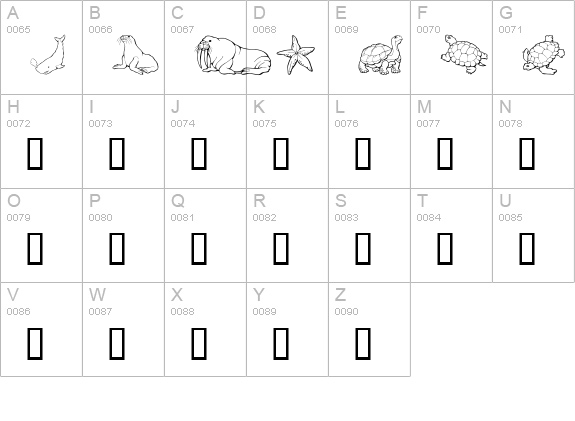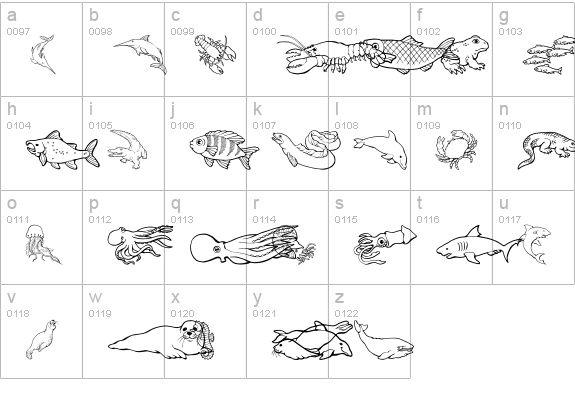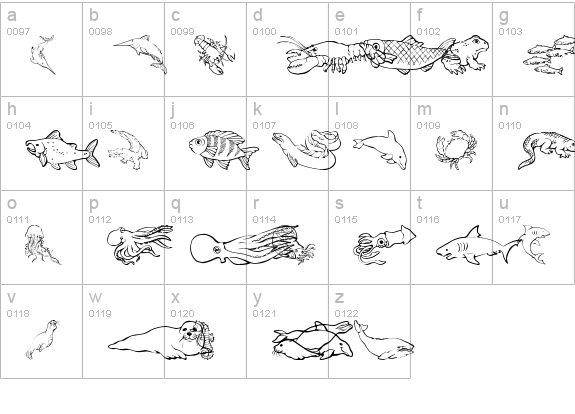
GE Out To Sea Font Details
Introducing GE Out To Sea font - a whimsical and playful typeface that captures the essence of the ocean breeze and the gentle lull of the waves. This unique font is perfect for adding a touch of nautical charm to your designs, whether it be for branding, packaging, invitations, or any creative project that needs a splash of seaside inspiration. The GE Out To Sea font features a delightful mix of curvy lines and smooth edges, giving it a fun and carefree appearance that will surely make your text stand out. Its versatility allows it to complement a wide range of design styles, from modern and minimalistic to vintage and retro. Best of all, GE Out To Sea font is completely free to download at FontsMarket.com, making it easily accessible for designers and creatives looking to add a touch of marine magic to their work. Embrace the spirit of the sea with GE Out To Sea font and let your creativity set sail!